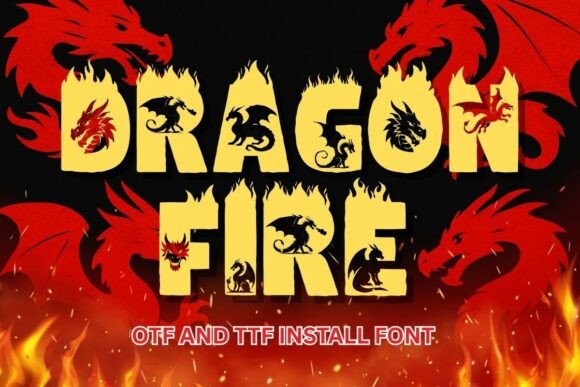
Btzdragonfire Font: Ignite Your Creativity with Dragon Fire
The world of typography is vast and diverse, offering a plethora of fonts to suit every creative need. Among these, the Btzdragonfire Font, also known as the Dragon Fire Font, stands out as a striking fantasy decorative typeface. This unique font breathes the power and mystique of dragons into every design, making it a perfect choice for fantasy enthusiasts and creative professionals alike.
The Design and Features of Dragon Fire Font
The Dragon Fire Font is meticulously designed with intricate details that set it apart from other fonts. Each uppercase letter from A to Z and number from 0 to 9 is crafted with dragon silhouettes and fiery details, creating an intense, mythical aesthetic. This level of detail ensures that any project using this font stands out with an unforgettable visual impact.
Key Features:
- Meticulous Design: Each character is designed with intricate dragon silhouettes and fiery details.
- Fantasy Aesthetic: Creates an intense, mythical look perfect for fantasy-related projects.
- Versatile Use: Suitable for RPG game titles, book covers, posters, YouTube or Twitch graphics, and print-on-demand projects.
Perfect for Fantasy Enthusiasts and Creative Professionals
The Dragon Fire Font is not just a typeface; it’s an experience. It brings the mythical and powerful imagery of dragons to the forefront of any design, making it perfect for:
Use Cases:
- RPG Game Titles: Add a mythical touch to your game titles that captures players’ imaginations.
- Book Covers: Elevate your fantasy book covers with a title that stands out and promises an epic story.
- Posters: Create posters for movies, events, or promotions that require a bold and mythical aesthetic.
- Digital Graphics: Enhance your YouTube or Twitch graphics with a font that adds a professional and thematic touch.
- Print-on-Demand Projects: Design unique t-shirts, stickers, and other merchandise that appeal to fantasy fans.
Elevate Your Designs with Dragon Fire
Whether you’re crafting logos, invitations, or bold fantasy statements, the Dragon Fire Font delivers an impactful visual presence. Its unique design ensures that your message is not just seen but remembered. The font’s versatility means it can be used across various platforms and projects, providing a consistent brand image for those who wish to evoke a sense of power and mystique.
Benefits of Using Dragon Fire Font:
- Unique Aesthetic: Provides a distinctive look that captures attention.
- Versatility: Can be used across a wide range of projects and platforms.
- Professionalism: Adds a touch of professionalism and creativity to any design.
Tips for Maximizing Impact:
- Combine with Complementary Fonts: Pair Dragon Fire with simpler fonts for contrast and visual hierarchy.
- Adjust Size and Color: Experiment with different sizes and colors to match your project’s theme.
- Consider Context: Ensure the font aligns with the overall tone and message of your project.
The Btzdragonfire Font, or Dragon Fire Font, is more than just a typeface. It’s a tool for bringing imagination to life. With its intricate designs, mythical aesthetic, and versatile use cases, it stands as an excellent choice for anyone looking to add a touch of fantasy and power to their creative projects. Whether you’re a fantasy enthusiast, a game developer, a graphic designer, or simply someone who appreciates unique typography, the Dragon Fire Font is sure to ignite your creativity and elevate your designs to new heights.